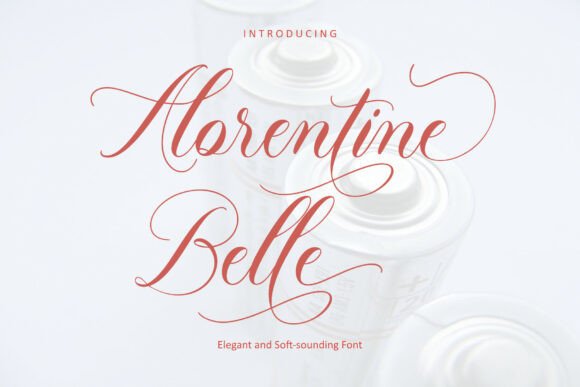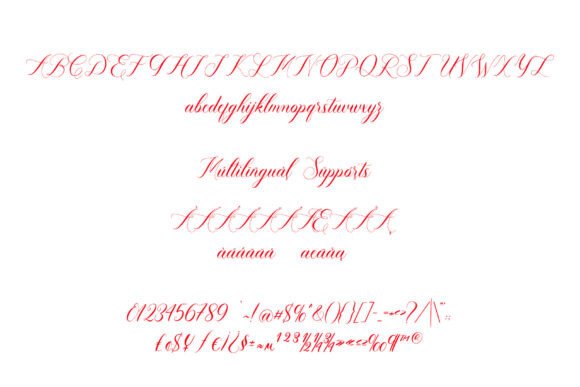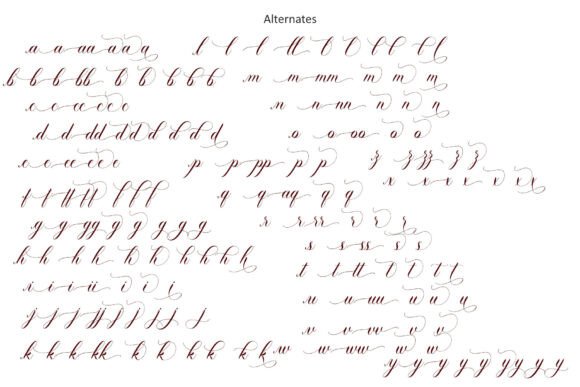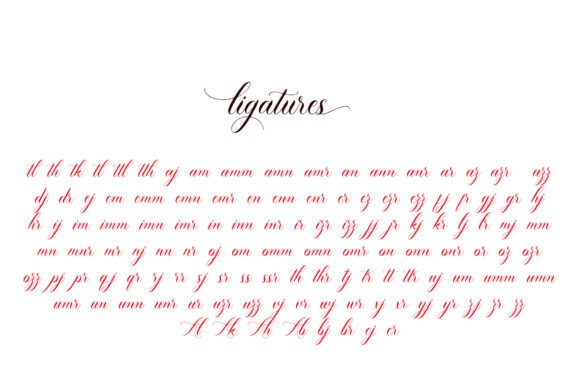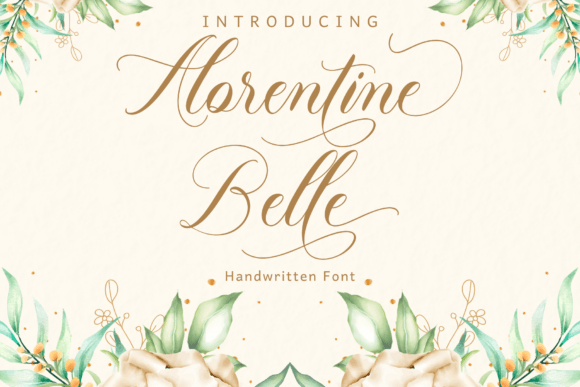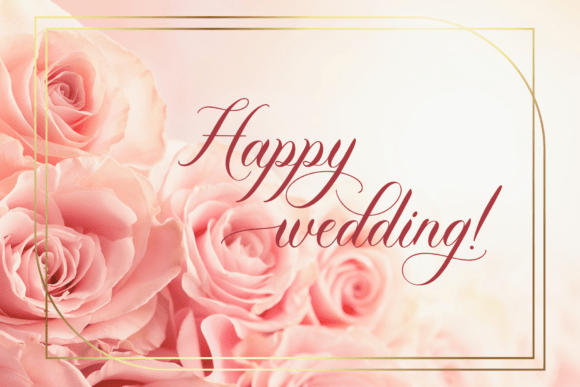
Introducing Alorentine Belle: The Epitome of Elegance in Typography
In the world of typography, few fonts manage to convey the essence of luxury and sophistication as effectively as Alorentine Belle. This exquisite script font is a masterpiece of design, boasting intricate swirls and delicate curves that instantly elevate any design project to new heights of elegance. Whether you’re a designer looking to create a lasting impression or a crafter seeking to add a touch of class to your creations, Alorentine Belle is the perfect choice.
The Characteristics of Alorentine Belle
Alorentine Belle is more than just a font; it’s an experience. Its luxurious script is carefully crafted to exude an air of refinement and poise, making it ideal for high-end branding, wedding invitations, and upscale events. The font’s intricate swirls and delicate curves add a level of sophistication that is hard to match, ensuring that your designs stand out from the crowd.
Perfect for Branding and Marketing Materials
When it comes to branding, the right typography can make all the difference. Alorentine Belle offers a unique opportunity to create a lasting impression on your audience. Its elegant and sophisticated design ensures that your brand stands out, conveying a sense of luxury and refinement that is sure to resonate with your target market. From logos and business cards to packaging and advertising materials, Alorentine Belle is the perfect choice for any brand looking to elevate its image.
A Favorite Among Wedding Planners and Event Coordinators
Wedding planners and event coordinators know the importance of creating a memorable experience for their clients and their guests. Alorentine Belle is a popular choice for wedding invitations, save-the-date cards, and other event materials, thanks to its romantic and elegant design. The font’s luxurious feel adds a touch of sophistication to any event, setting the tone for a truly unforgettable experience.
Why Designers and Crafters Love Alorentine Belle
Designers and crafters are always on the lookout for high-quality fonts that can help them create stunning designs. Alorentine Belle has become a favorite among creative professionals, thanks to its versatility and elegance. The font is perfect for a wide range of design projects, from stationery and signage to digital graphics and web design. With Alorentine Belle, you can add a touch of luxury to any project, ensuring that it stands out from the crowd.
Tips for Using Alorentine Belle Effectively
To get the most out of Alorentine Belle, it’s essential to use it effectively. Here are a few tips to help you make the most of this stunning font:
- Use Alorentine Belle as a headline font to add a touch of elegance to your designs.
- Pair Alorentine Belle with a simpler font for body text to create a striking contrast.
- Don’t be afraid to get creative and add your own personal touch to your designs.
| Font Name | Alorentine Belle Font |
| Author | jackgridden |
Alorentine Belle is a truly exceptional font that is sure to elevate any design project to new heights of elegance and sophistication. With its intricate swirls and delicate curves, this luxurious script font is perfect for branding, wedding invitations, and upscale events. Whether you’re a designer, crafter, or simply someone who appreciates beautiful typography, Alorentine Belle is a must-have font that is sure to make a statement.